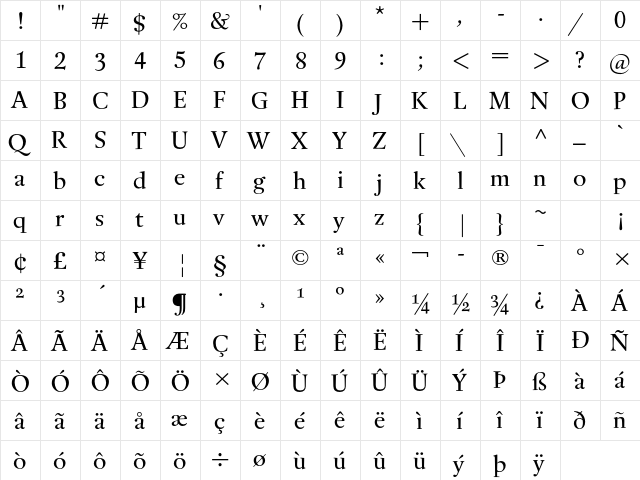
Buccardi Std Regular
Design Context for Buccardi Std Typeface
Buccardi Std takes a measured approach to typography — its balanced proportions and neutral character make it a reliable workhorse for both digital and print work.